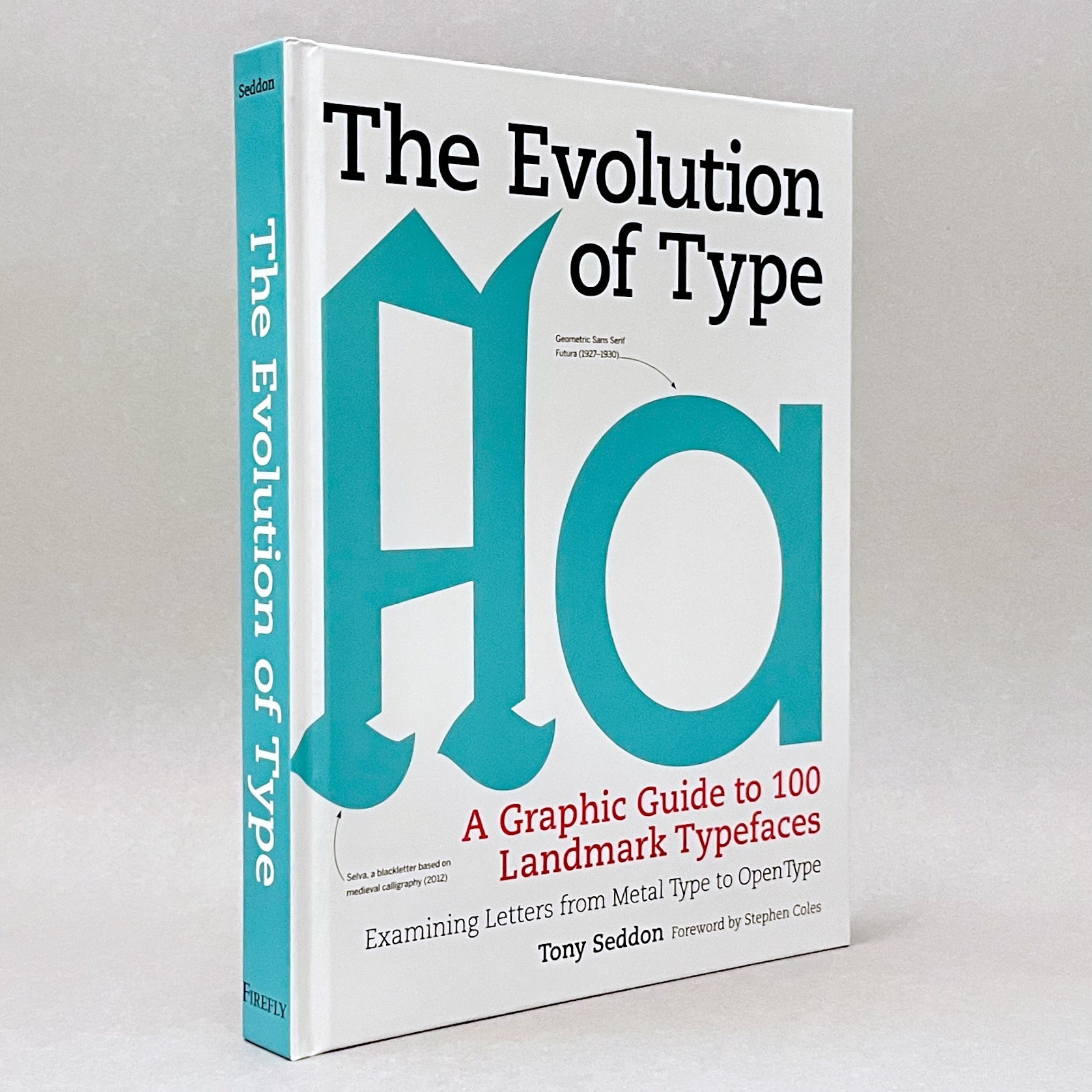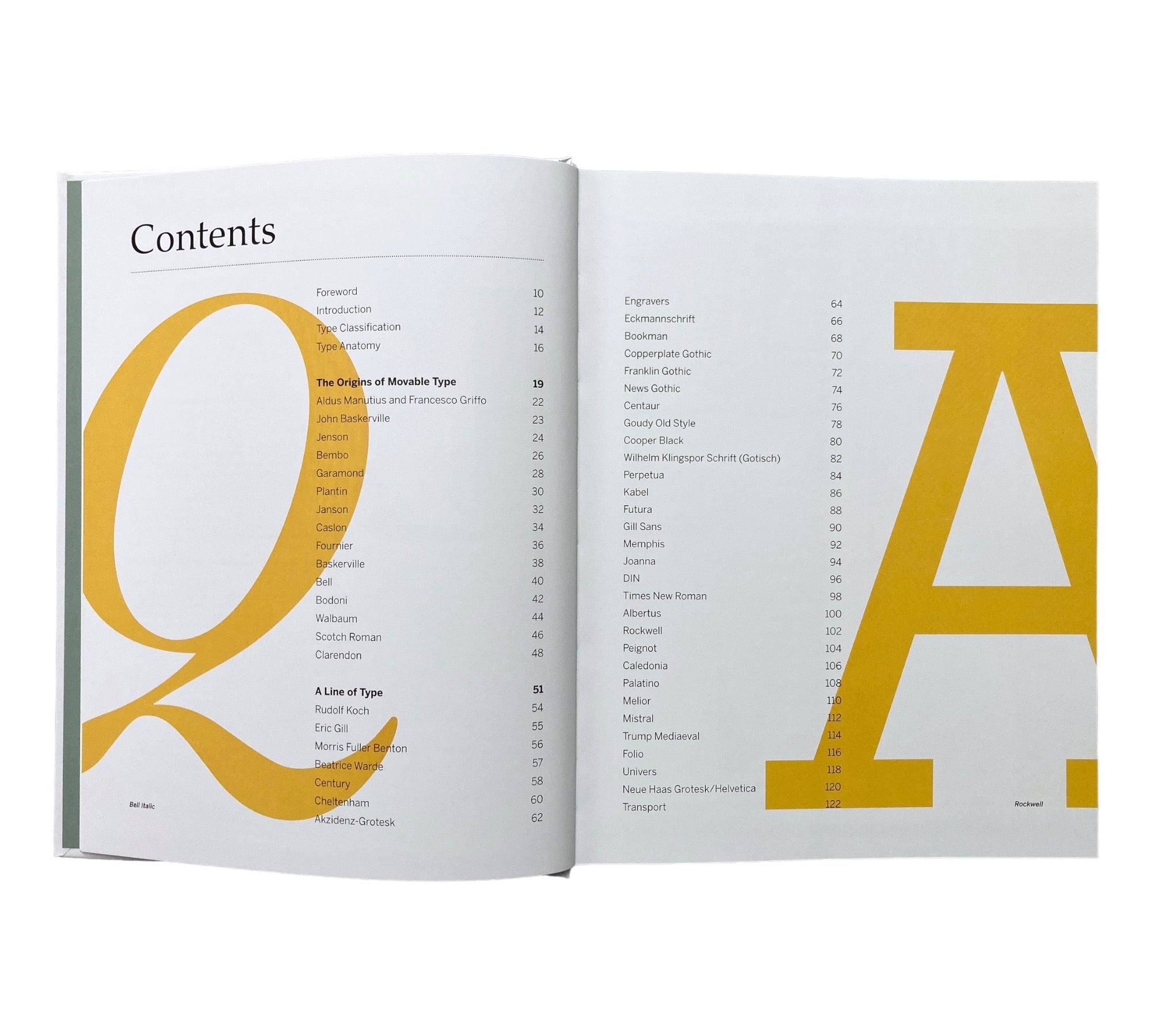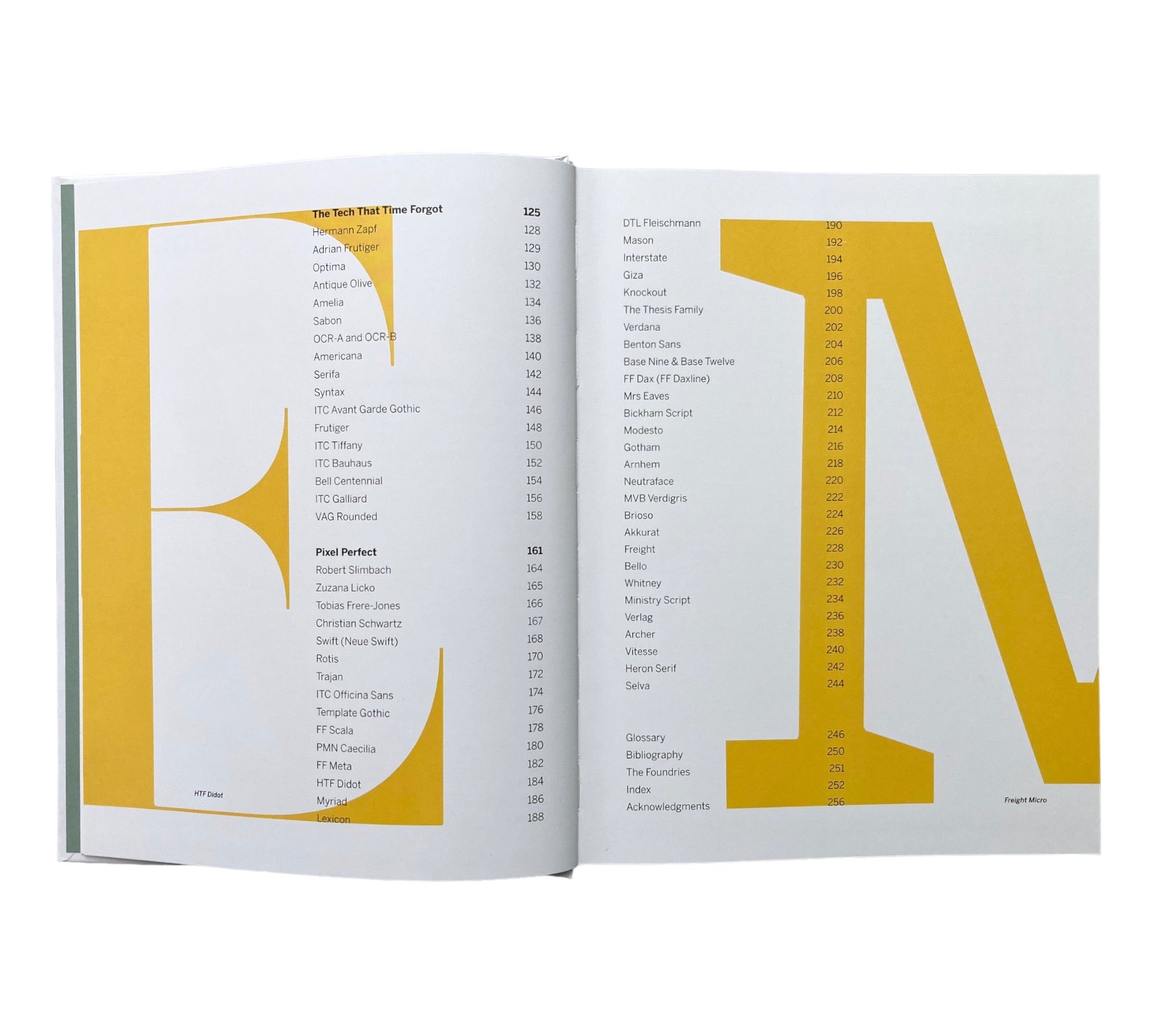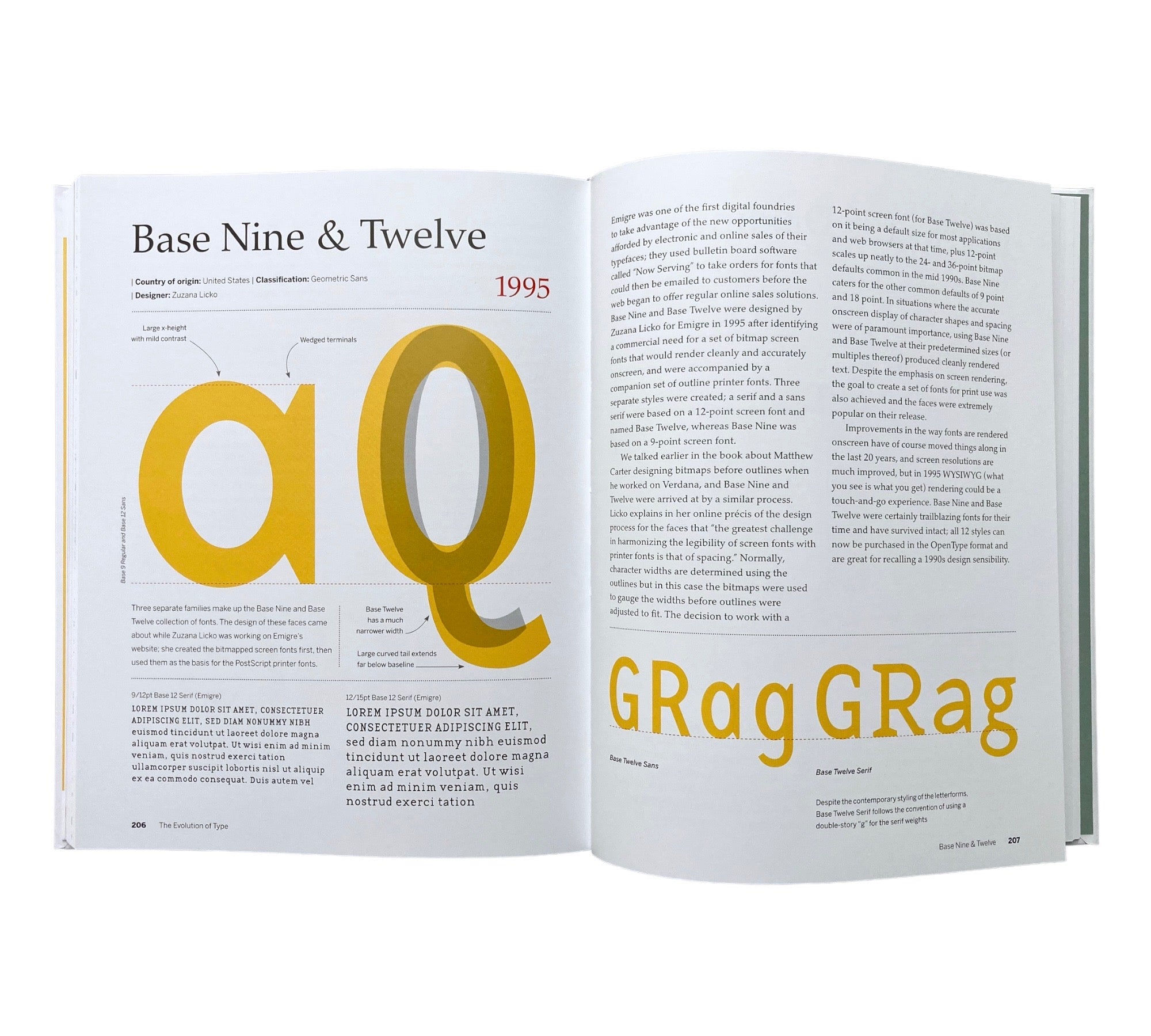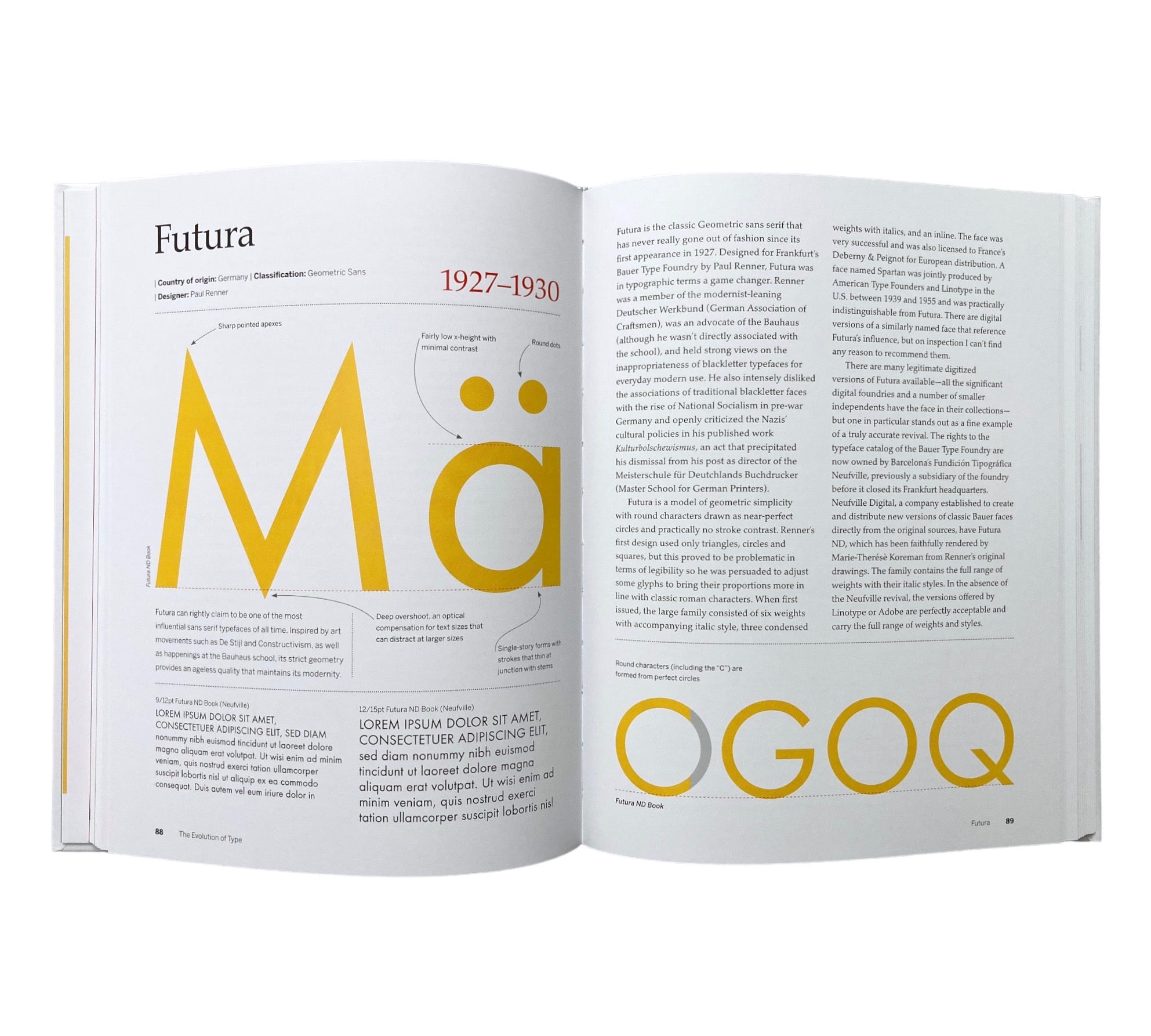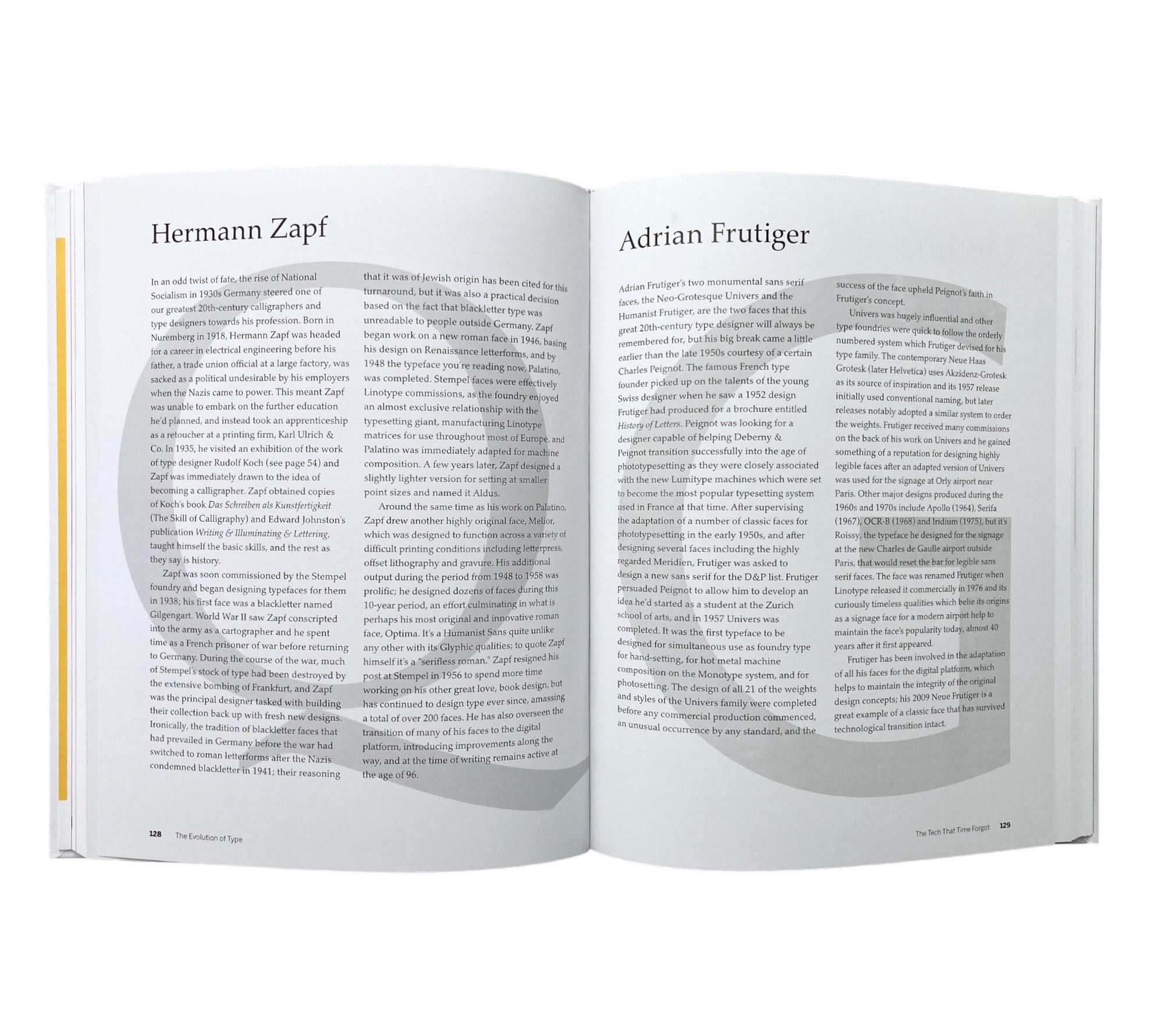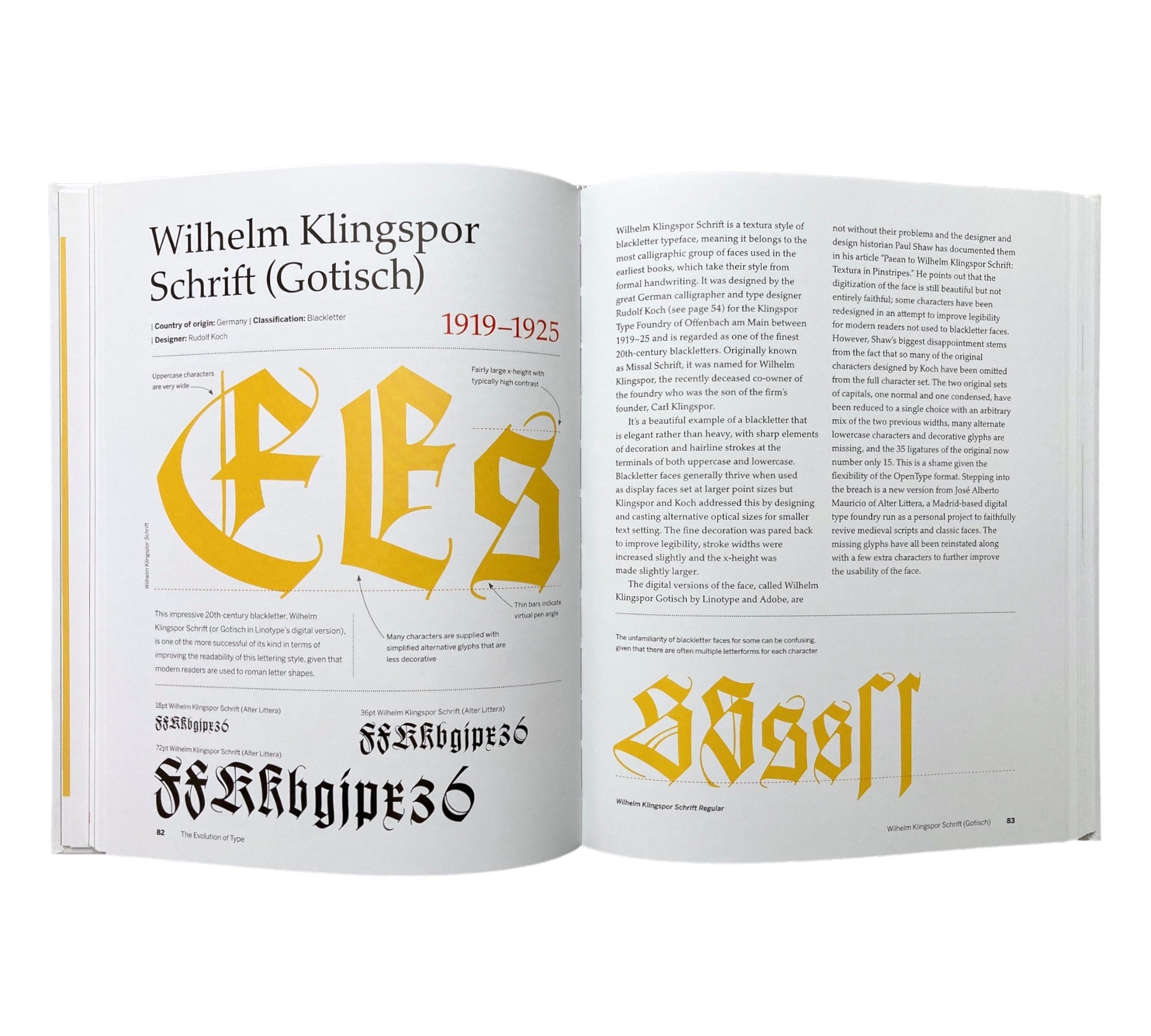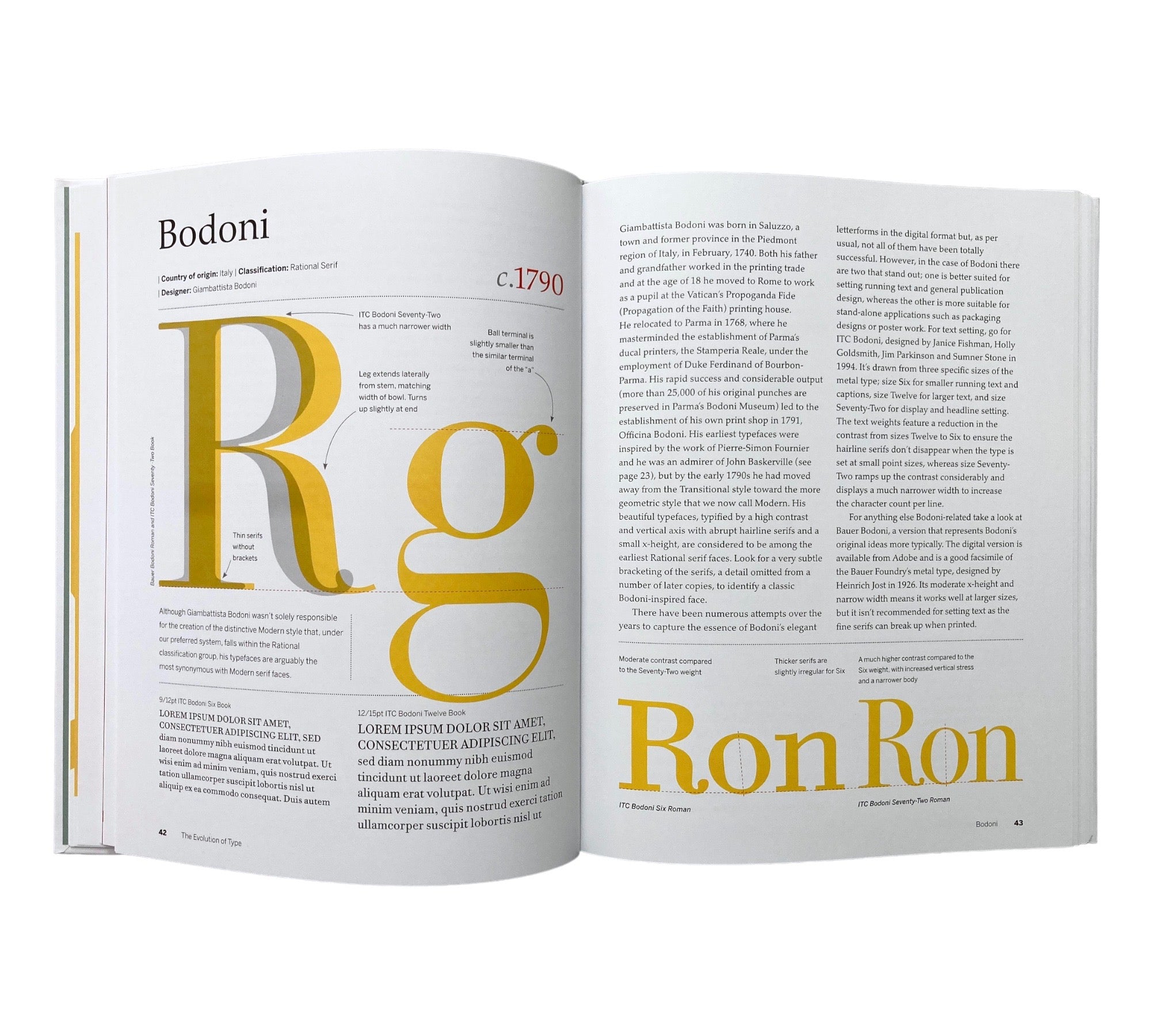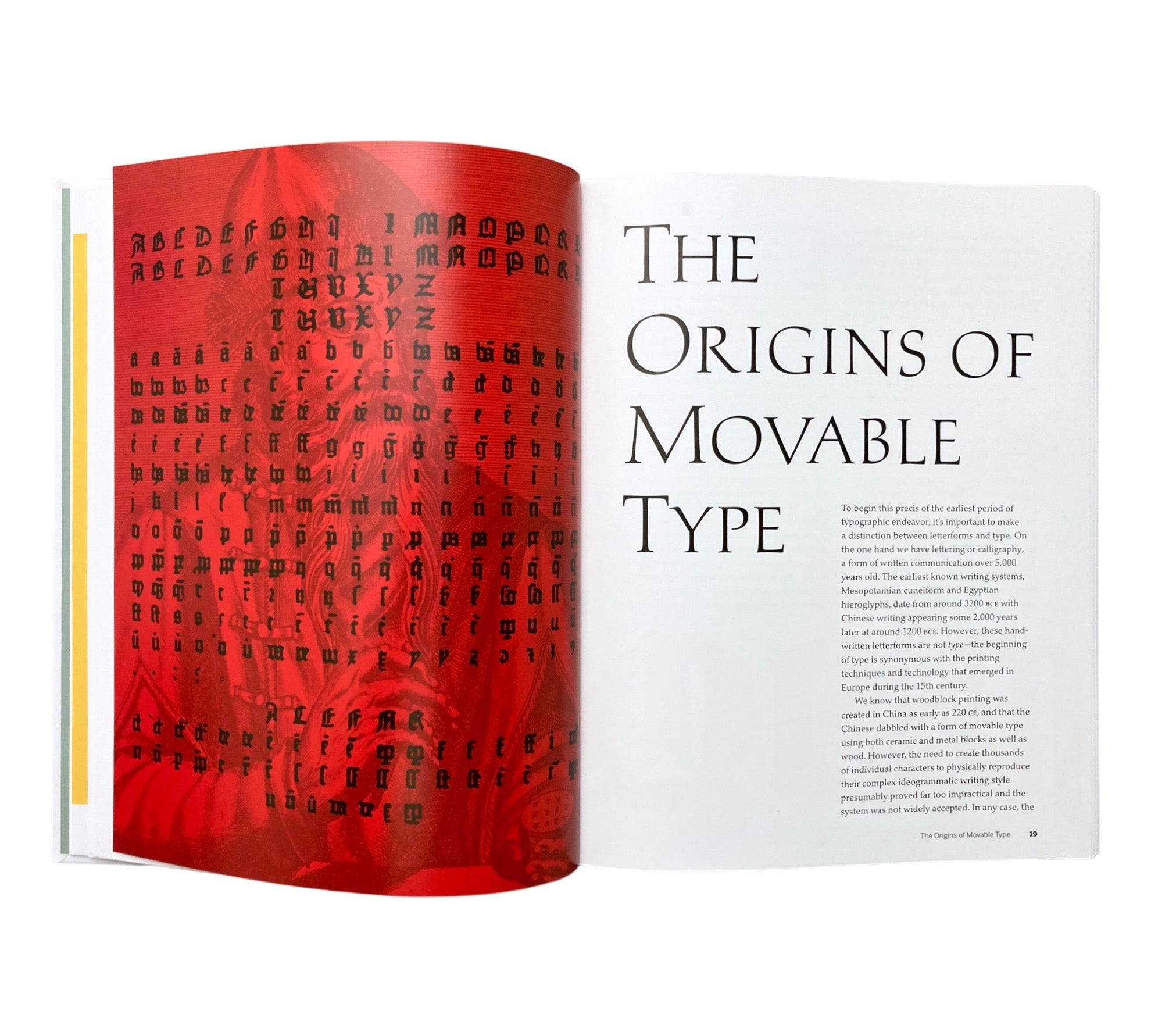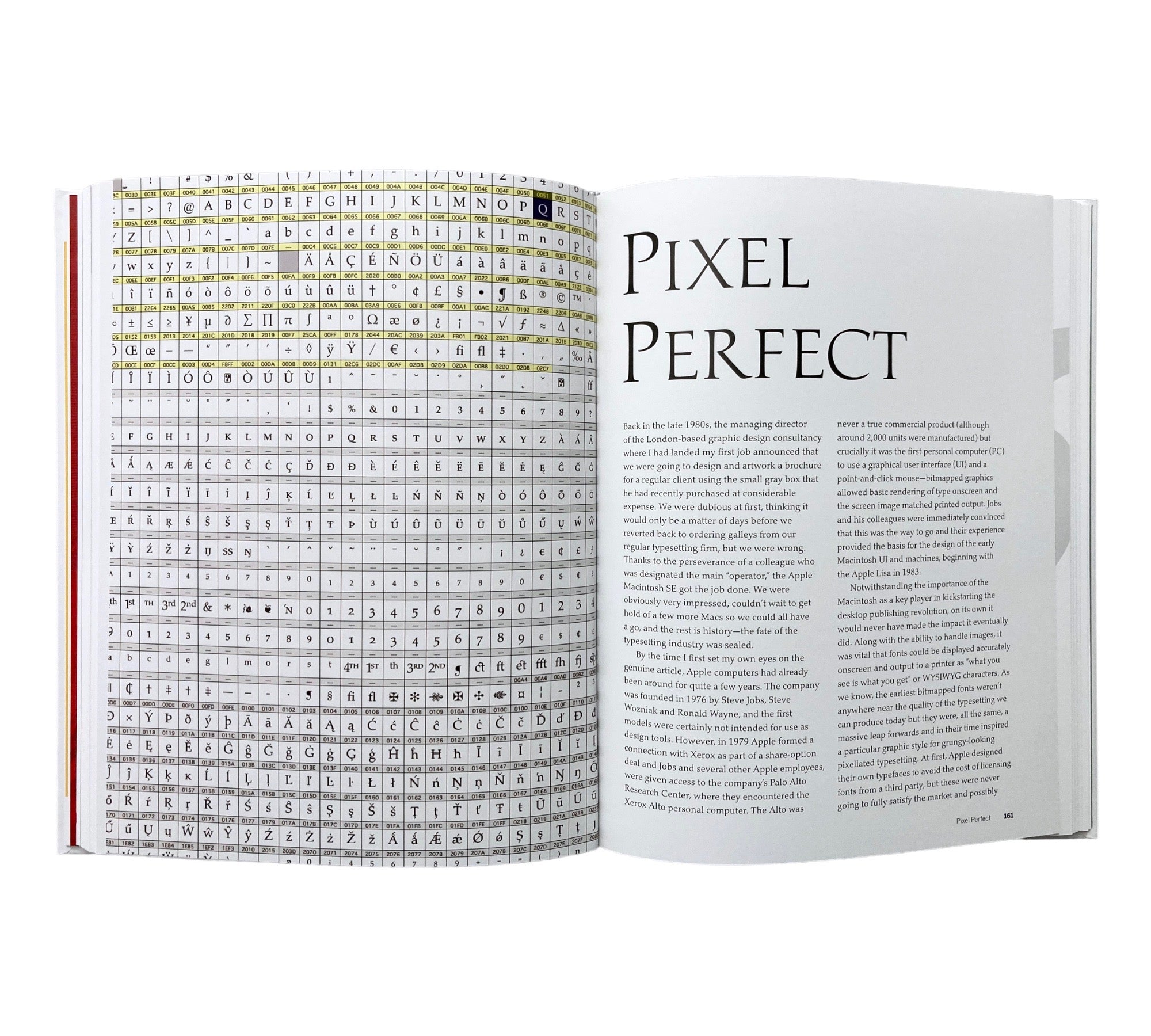
The Evolution of Type examines 100 landmark typefaces from the history of font design, from the type used by Johannes Gutenberg to produce his 42-Line Bible, to the latest digital typefaces. It reveals the meaning behind typographic characters and shows how the use of type has changed over time.
A full spread is devoted to each typeface and its origins. Concise text describes the design history and usage of the face, and its long-term impact on the development of typefaces. Annotated enlargements show the new features that the typeface introduced and highlight its most important design characteristics.